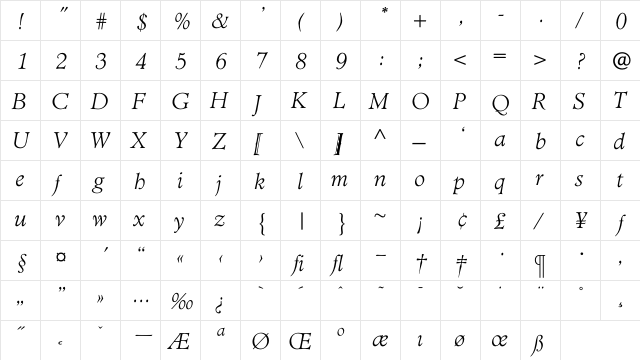
TCAdministerLightItalic Regular
Design Context for TCAdministerLightItalic Typeface
TCAdministerLightItalic is a composed and adaptable typeface that performs quietly and consistently across a wide range of design contexts. The slanted form adds forward momentum and visual energy. The delicate stroke weight brings airiness and refinement to layouts.
Pro Tip: Try TCAdministerLightItalic for annotation and caption copy alongside an upright companion — the contrast in angle creates a dynamic but ordered typographic system.